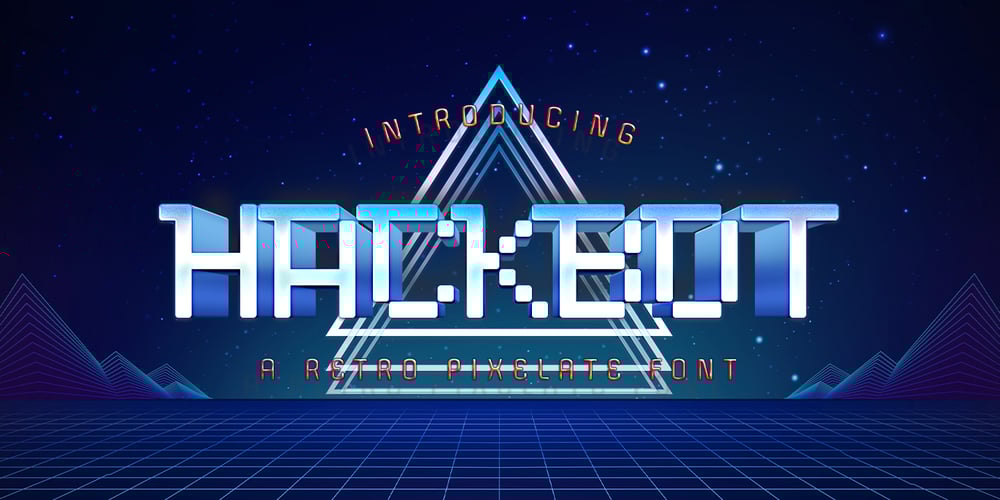
Hackbot
Hackbot font
Hackbot Font Family was designed by Hilmius Akbar and published by Typefactory. Hackbot contains 1 styles and family package options. Hackbot is a font which is both retro-inspired and amusing to the eye. The gaps between the letterings allows you to feel vintage and travel back to the old times. It’s a font which uses a sans serif style of writing, but uses a retro design to make an overall unique font. It’s flawlessly suitable for promoting games, creating quotes, retro designs and much more.